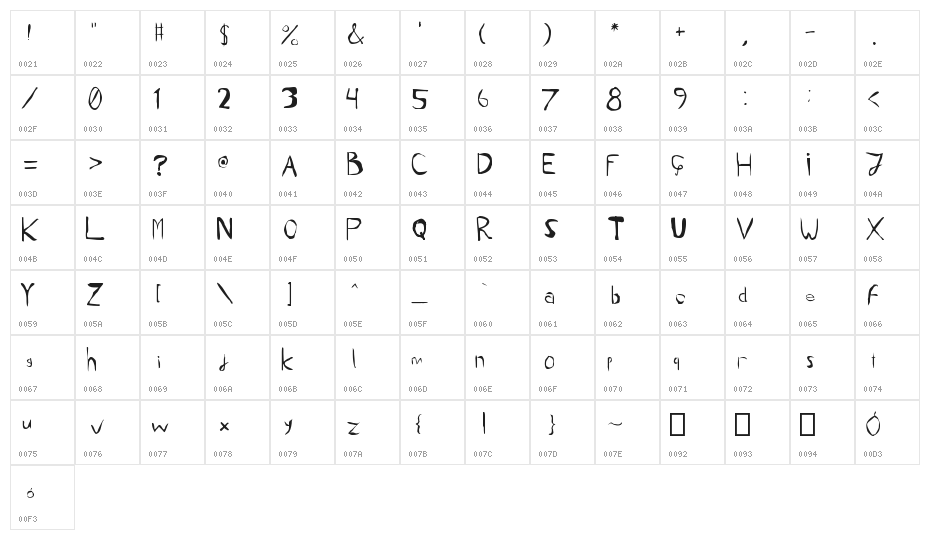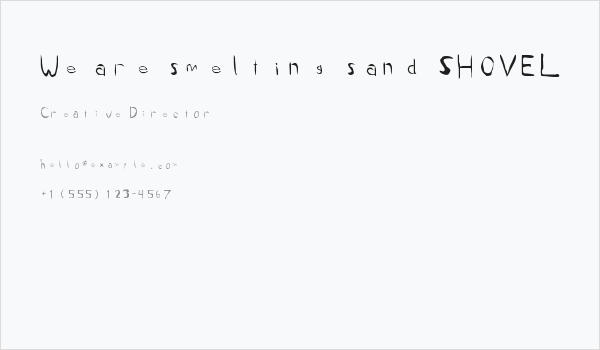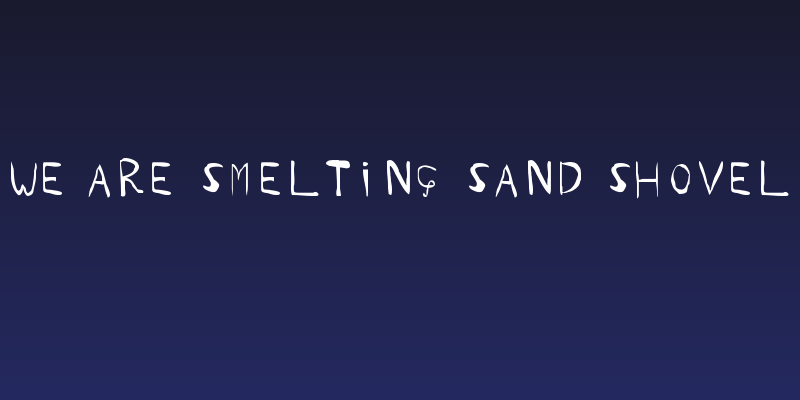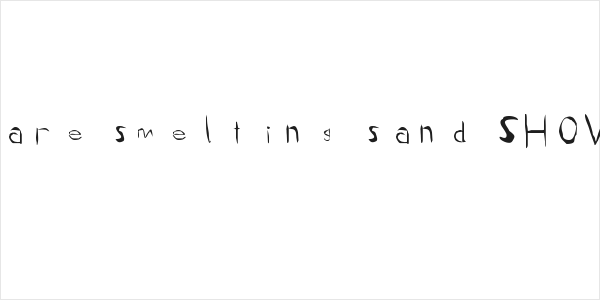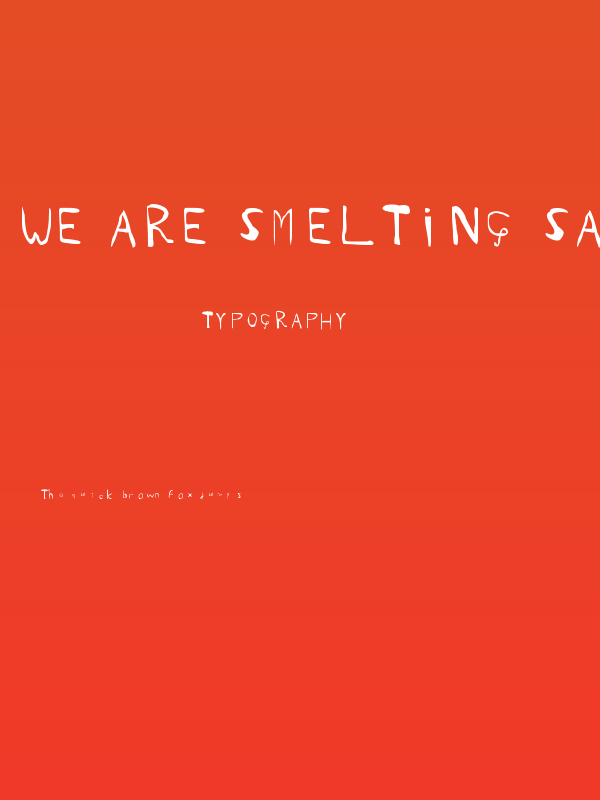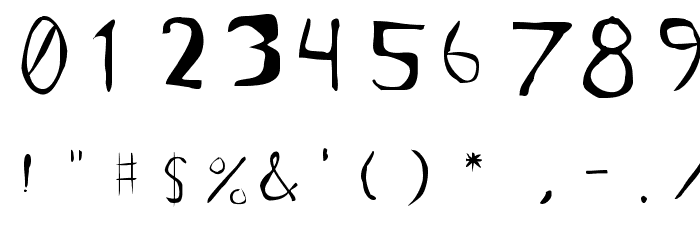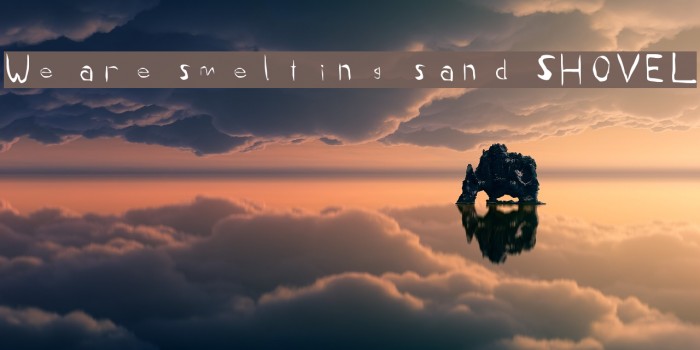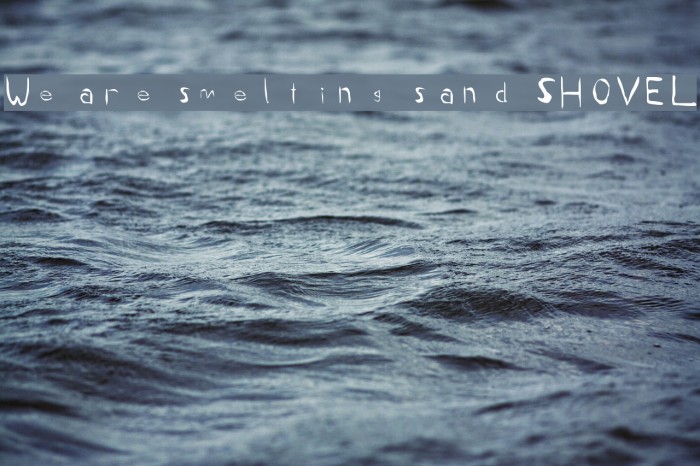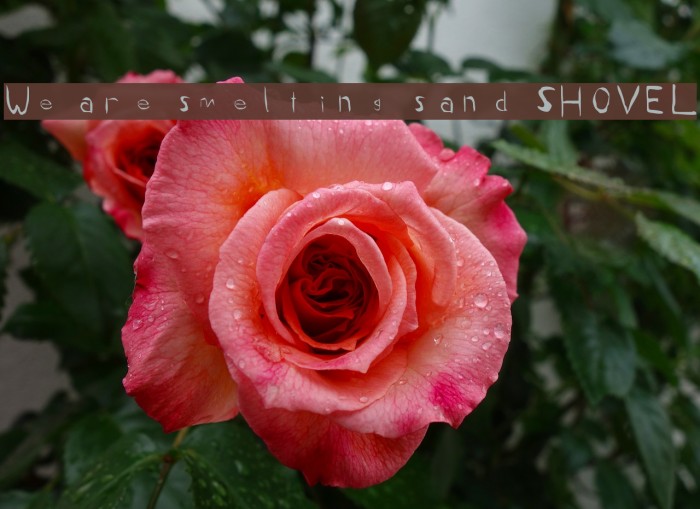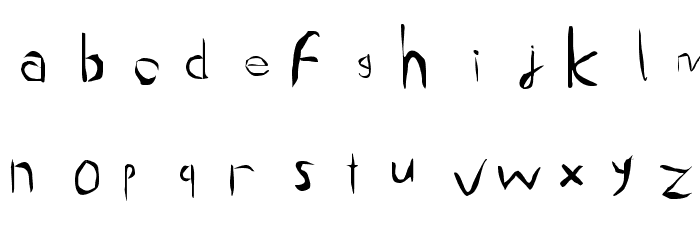
We are smelting sand SHOVEL Font
We are smelting sand SHOVEL Description
This font features a whimsical and playful design, characterized by irregular and uneven strokes that give it a hand-drawn appearance. The letters are quirky and unique, with varying heights and widths that add to its charm. The uppercase letters have a bold presence, while the lowercase letters maintain a more delicate and slender form. The numerals are distinct and follow the same playful style, making them stand out. Special characters are creatively designed, adding to the overall artistic feel. This font is perfect for projects that require a fun and informal touch.
| Proposed Projects | Ideal for children's books, creative posters, greeting cards, and playful branding. |